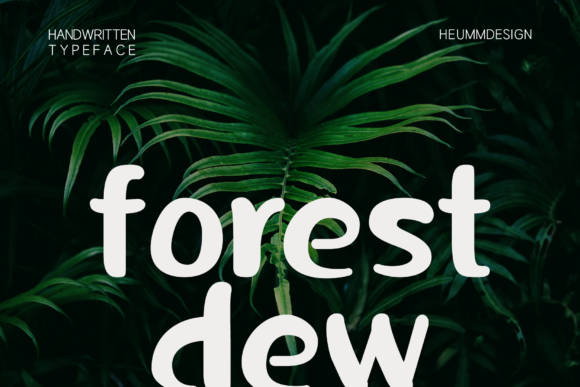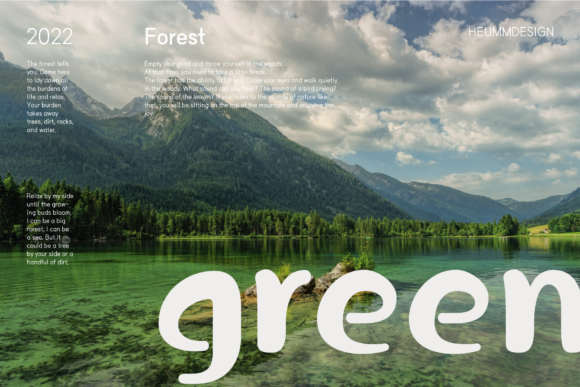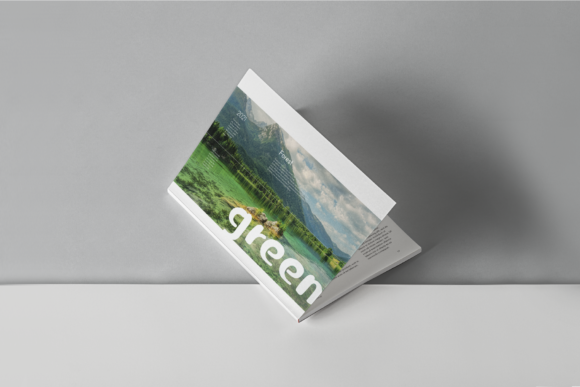
Introduction to HU Greentea Font
HU Greentea is an incredibly unique display font.
Masterfully designed to become a true favorite, this font has the potential to bring each of your creative ideas to the highest level .
HU Greentea Font offers exceptional quality and versatility, making it a valuable addition to your design toolkit. Whether you’re creating for personal projects or commercial use, HU Greentea Font delivers professional results.